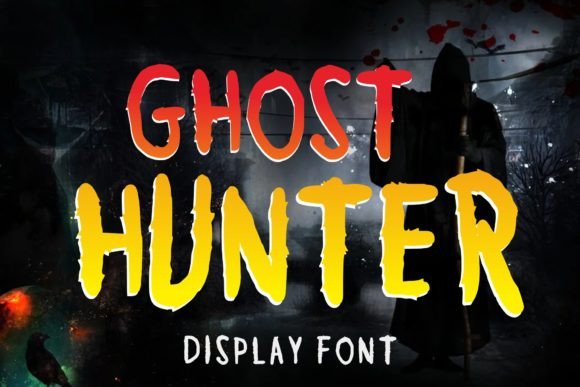
Ghost Hunter: A Spooky Yet Fun Display Font
If you're looking for a typeface that adds an eerie, whimsical twist to your creative projects, Ghost Hunter is the perfect choice. This display font blends spooky aesthetics with playful charm, making it ideal for designs that aim to capture attention without being too serious. Whether you're creating Halloween-themed merchandise, vintage-inspired posters, or anything in between, Ghost Hunter brings character and visual interest right to the surface.
What Makes Ghost Hunter Unique?
Ghost Hunter isn't just another decorative font—it's a design asset that tells a story. Its letters are crafted with subtle quirks, like elongated strokes, ghostly flourishes, and a slightly uneven baseline, which give it a hand-drawn feel. These characteristics make it stand out from standard sans serif or serif fonts, offering a more engaging and atmospheric look.
The font’s personality is best described as mysterious yet approachable. It doesn’t scream horror but rather whispers intrigue, making it versatile enough for both fun and more serious contexts. The overall style evokes nostalgia for old carnival signs, haunted house billboards, and classic spooky illustrations—think of those vintage Halloween cards from the 1950s or retro pin-up art.
As a premium font, Ghost Hunter balances uniqueness with usability. While it's not meant for long blocks of text due to its decorative nature, it shines when used in short bursts—headlines, titles, logos, and other typographic highlights where impact matters most.
Design Characteristics to Note
- Display-Only Purpose: Best suited for headlines and accents, not body text.
- Handwritten Influence: Offers a casual, organic vibe while maintaining structural clarity.
- Visual Contrast: Bold and thin elements work together to create dynamic compositions.
- Spooky Charm: Ideal for themes related to mystery, fantasy, or seasonal events like Halloween.
Where to Use Ghost Hunter
Ghost Hunter thrives in environments where creativity and mood are key. Here are some of the top applications across various industries and media types:
Creative Projects
For designers and hobbyists, Ghost Hunter is a go-to font for cover art, album titles, greeting cards, and illustration-based projects. Its unique flair makes it especially effective for indie game covers, book jackets, and poster designs. The font helps set the tone before viewers even see the visuals, making it a powerful storytelling tool.
Branding and Marketing
Marketers and brand strategists can use Ghost Hunter to craft memorable logos or taglines for niche businesses like haunted house attractions, vintage shops, or specialty cafes serving themed beverages. The font contributes to building a strong brand identity by aligning with the brand's voice and visual language.
In packaging design, Ghost Hunter adds a sense of whimsy and character. Think about using it on Halloween candy boxes, novelty mugs, or limited-edition product releases. Just be sure to test it alongside other design elements to ensure it enhances rather than overwhelms the message.
Publishing and Editorial Design
In editorial contexts, such as magazines, blogs, or zines focused on pop culture, folklore, or seasonal content, Ghost Hunter can serve as a compelling headline font. It creates visual hierarchy and draws readers into articles about ghosts, urban legends, or paranormal investigations.
Bloggers who focus on lifestyle, travel, or entertainment can also leverage this font for feature titles or section headers. It adds a touch of fun and individuality, helping their content stand out in a sea of uniform layouts.
Digital and Social Media
On websites and social media platforms, Ghost Hunter works well in hero sections, call-to-action buttons, or promotional banners. For web design, always consider legibility at different sizes and contrast against background colors. Pair it with a clean sans serif font for body copy to maintain readability and balance.
Entrepreneurs selling digital products like printable party invites, DIY craft kits, or themed templates will find Ghost Hunter enhances the perceived value and creativity of their offerings. Its inclusion in design assets like mockups or overlays can help clients visualize how it might work in their own branding.
Practical Tips for Using Ghost Hunter
Choosing the right font is only half the battle—you also need to ensure it fits your project’s goals and audience. Here’s how to evaluate whether Ghost Hunter is the right fit:
- Understand Your Project’s Tone: Is it spooky, fun, nostalgic, or adventurous? Ghost Hunter aligns well with these moods.
- Evaluate Readability: Test the font at various sizes and on different screens. Avoid using it in small text or dense paragraphs.
- Font Pairing Considerations: Pair Ghost Hunter with neutral, modern typography to balance its eccentricity. Try a minimalist sans serif like Montserrat or a sleek serif like Playfair Display for contrast.
As with any creative font, success lies in knowing when and how to use it effectively. Evaluate your project’s needs, test combinations, and always prioritize clarity and accessibility. When done right, Ghost Hunter can elevate your design work, support your brand identity, and connect with your audience in a meaningful way.
So if you’re ready to add a little haunting charm to your next project, Ghost Hunter might just be the missing piece in your design toolkit.